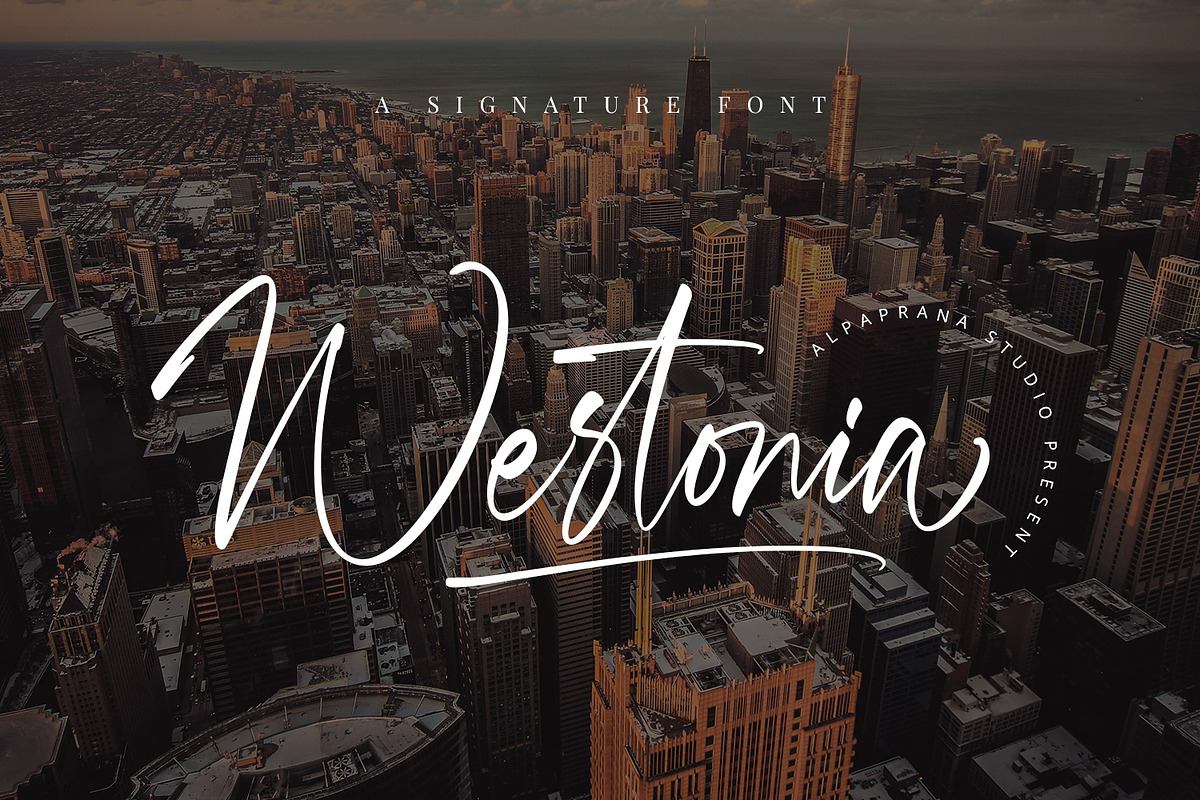
Please note that you must purchase this font for commercial use. You can download Westonia – Signature Font for free, strictly for personal testing purposes only. Westonia is a sophisticated, handwritten signature font that exudes elegance and charm. With its smooth, fluid strokes and flowing design, Westonia Signature Font Free Download is perfect for branding, logos, wedding invitations, personal stationery, and any project that requires a refined, signature-style font.
The font captures a stylish, professional look, offering both elegance and personality, making it ideal for both formal and creative projects. It includes uppercase and lowercase letters, numerals, punctuation, and multilingual support, ensuring versatility for a wide range of design needs.
Whether you're creating a luxury brand identity, designing beautiful invitations, or crafting a personal logo, Westonia adds a graceful, handwritten touch to your typography.